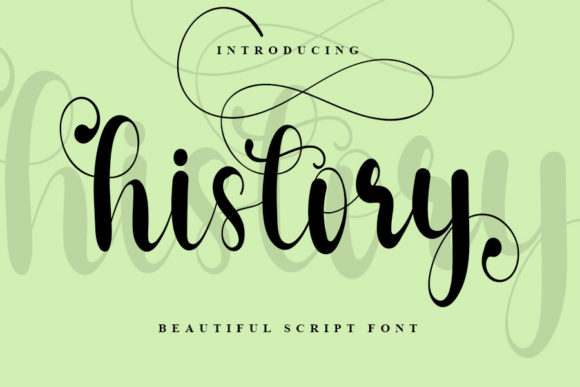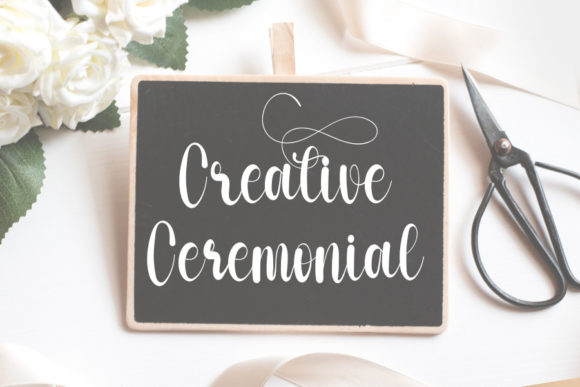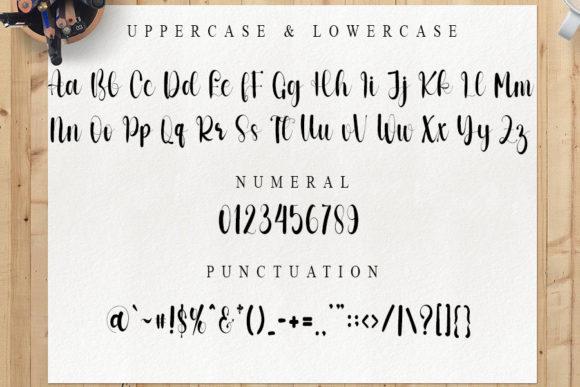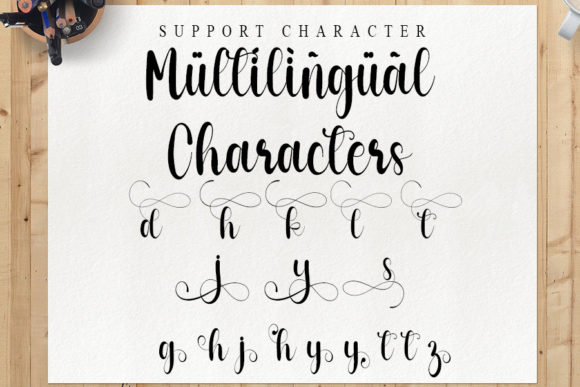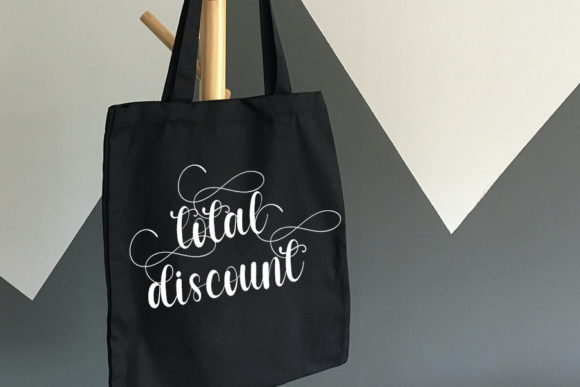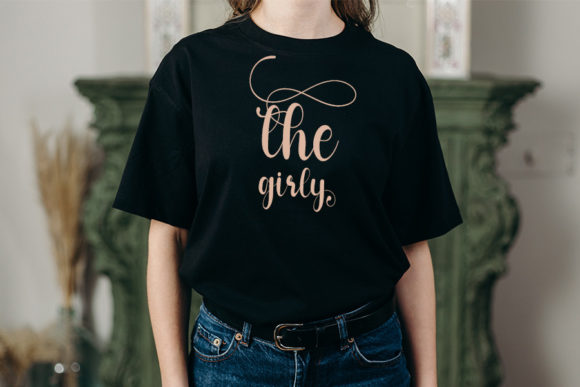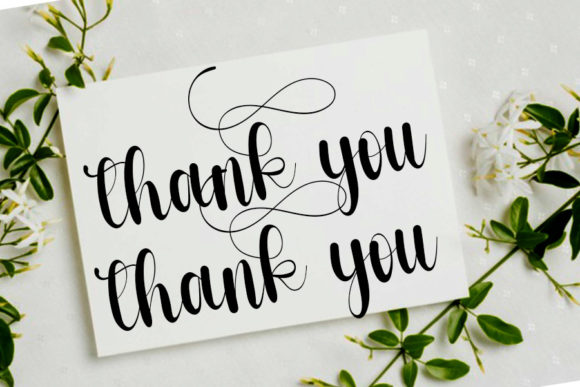
History Font
About History Font
History is a gorgeous and bold script font. Simple and easy to use, this font will be very beautiful if you mix it with your various craft designs.